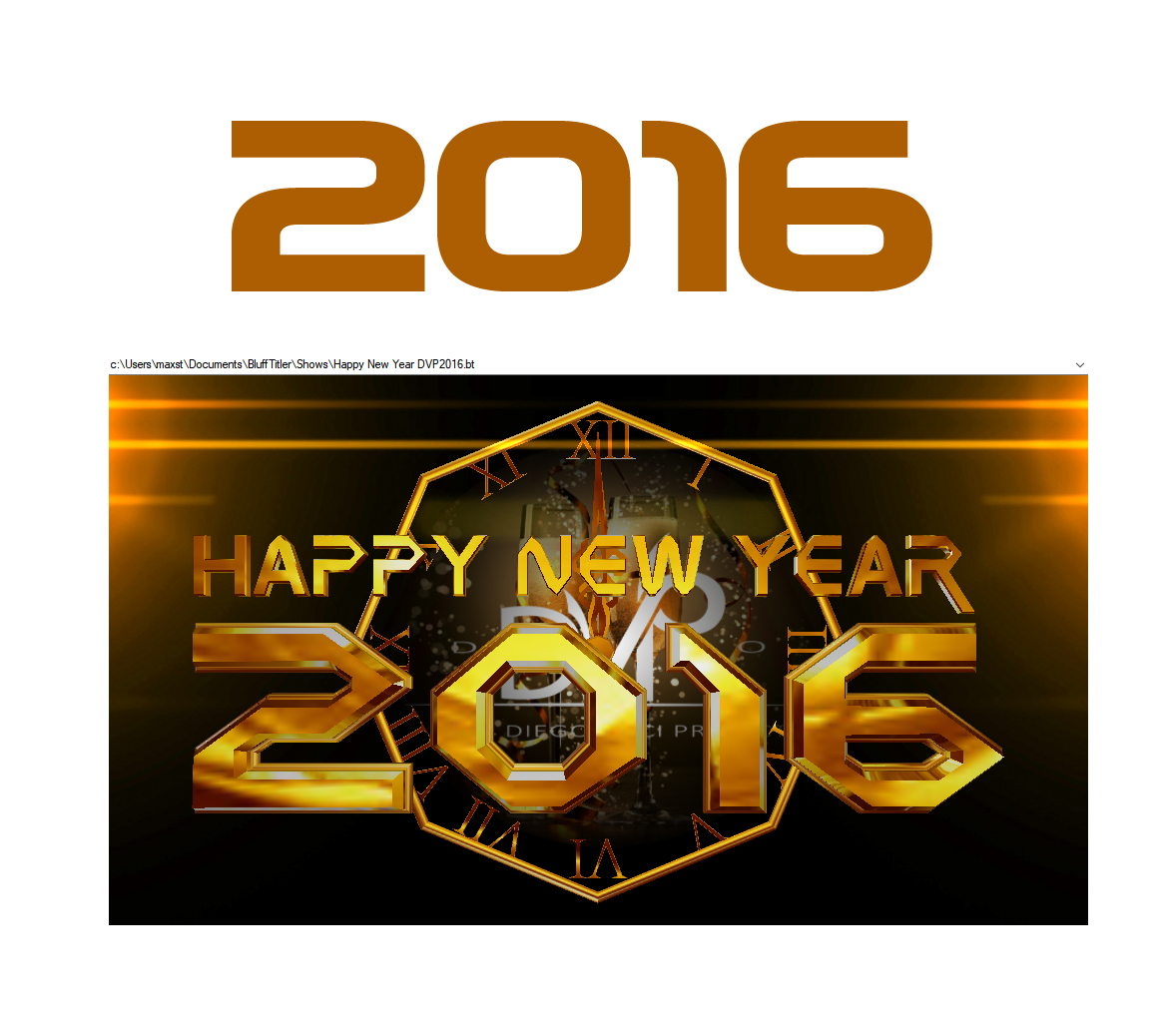
While trying to update an old BT show I discover that the font can no longer be displayed correctly. The rounded portions of the font are somehow changed or distorted. I've included a sample of the font and the distortion. Is there something changed in the application causing this and can it be corrected?
I tried to recreate this and it looks to me you use the cornered pixels Style. Am I right?
See the pixture. The first is The Solid Style, the second the Cornered Pixels style.
Filip; Thank you for responding. The first (that you show) is Zebulon (Normal). I have used this font in many older shows and now BT displays the font distorted (cornered pixels style). THe font should be as it is shown in your example first. THere is no style attached to the font so it should display correctly, instead it gets somehow changed to the angled style visible. I would like to have the font displayed normally. Everything else in BT is working correctly. THanks again for your help.